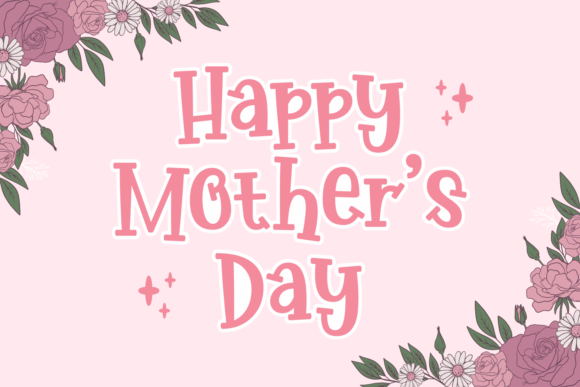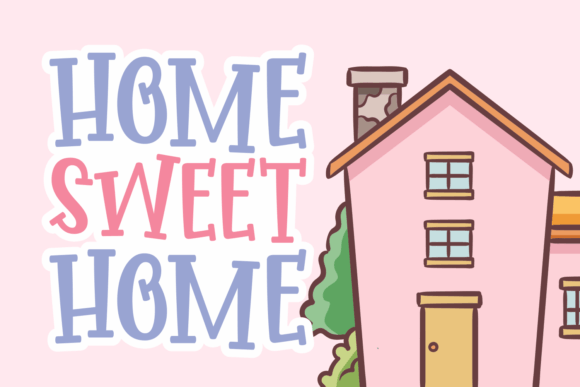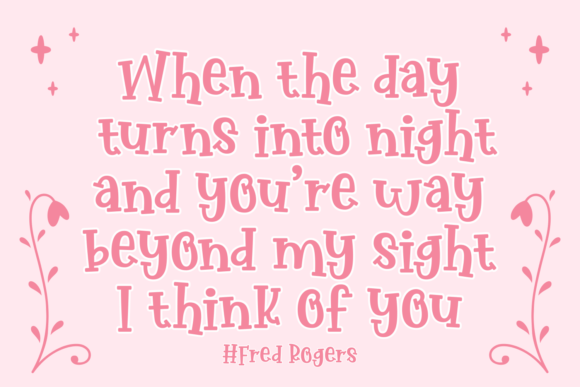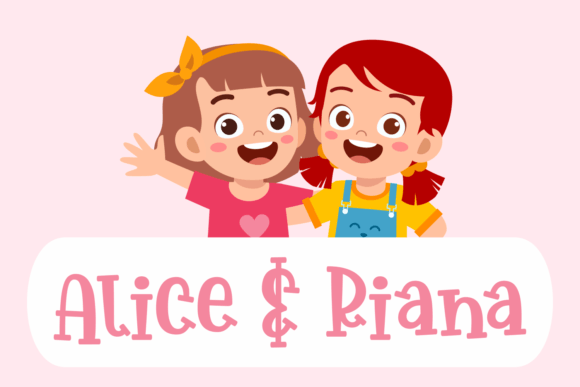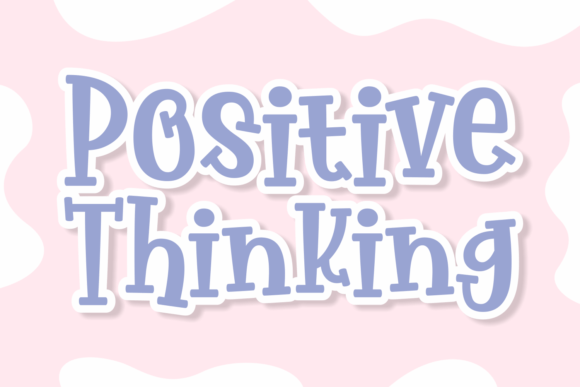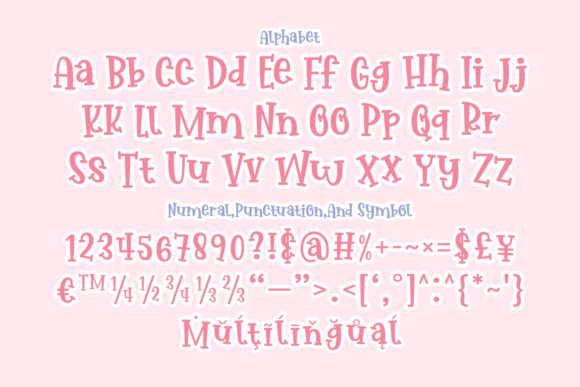
Introducing Beloved Family: The Ultimate Serif Font for Elegant Designs
Are you tired of using the same old fonts in your designs? Look no further than Beloved Family, a clean and lovely serif font that’s perfect for adding a touch of warmth to any project. With its delicate lines, curves, and serifs, this font is ideal for use in a variety of projects, from logos to headlines, to the body copy.
The Characteristics of Beloved Family
Beloved Family is a beautifully crafted serif font that’s designed to bring an elegant, classic feel to your designs. Its key characteristics include:
- Delicate lines and curves: The font features delicate lines and curves that give it a sophisticated and refined look.
- Serifs: The serifs in Beloved Family are carefully designed to add a touch of elegance to your designs.
- Readability: This font is easily readable, even at small sizes, making it perfect for use in body copy.
- Timeless look: The font has a timeless look that will never go out of style, ensuring your designs remain elegant and classic for years to come.
PUA Encoding for Effortless Access to Glyphs and Swashes
Beloved Family is PUA encoded, which means you can access all glyphs and swashes effortlessly. This feature makes it easy to customize your designs and add a personal touch. With PUA encoding, you can:
- Access a wide range of glyphs: The font includes a wide range of glyphs, including alternative characters, ligatures, and swashes.
- Easily customize your designs: With PUA encoding, you can easily access and use the glyphs and swashes to create unique and customized designs.
Beloved Family is a versatile font that’s perfect for use in a variety of projects, including:
- Logos: The font’s elegant and classic look makes it perfect for use in logos, particularly for brands that want to convey a sense of sophistication and refinement.
- Headlines: The font’s delicate lines and curves make it ideal for use in headlines, where you want to grab the reader’s attention.
- Body copy: The font’s readability and timeless look make it perfect for use in body copy, where you want to convey a sense of elegance and sophistication.
Why Choose Beloved Family?
There are many reasons why you should choose Beloved Family for your next design project. Here are just a few:
- Elegant and classic look: The font’s elegant and classic look will add a touch of sophistication to your designs.
- Versatile: The font is perfect for use in a variety of projects, from logos to headlines, to body copy.
- Easily readable: The font is easily readable, even at small sizes, making it perfect for use in body copy.
- PUA encoded: The font’s PUA encoding makes it easy to access and use a wide range of glyphs and swashes.
In conclusion, Beloved Family is a beautiful and versatile serif font that’s perfect for adding a touch of warmth and elegance to any design project. With its delicate lines, curves, and serifs, this font is ideal for use in a variety of projects, from logos to headlines, to body copy. Its PUA encoding makes it easy to access and use a wide range of glyphs and swashes, and its readability and timeless look ensure that your designs will remain elegant and classic for years to come.